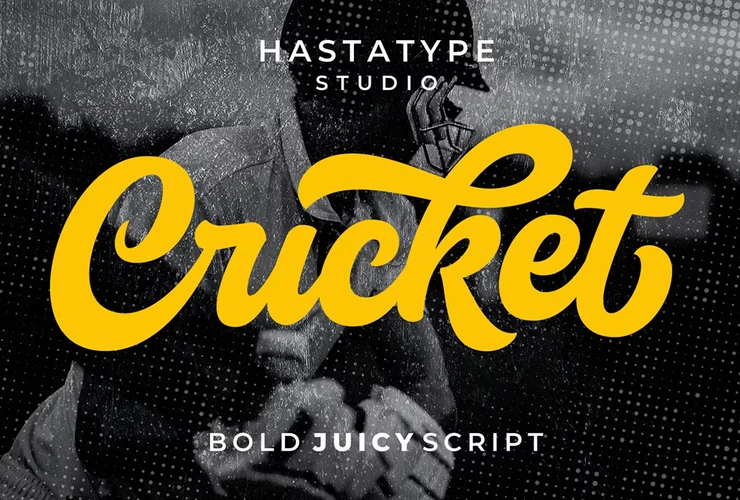
Introducing Cricket Script: A Dynamic and Bold Font for Striking Logotypes
Discover the elegance and energy of Cricket Script, a dynamic and bold script font designed to create distinctive logotypes. With its sweeping curves and intricate strokes, Cricket Script exudes a sense of motion and sophistication, making it the perfect choice for branding projects that require a striking and memorable impact.
Key Features of Cricket Script
Cricket Script is meticulously crafted to ensure your text stands out with style and flair. Here are some of its standout features:
Elegant and Energetic Design: Cricket Script’s bold and dynamic style brings a sense of motion and sophistication to your designs.
Comprehensive Character Set: Includes uppercase and lowercase letters, numbers, and punctuation.
Multilingual Support: Cricket Script supports multiple languages, making it accessible for a global audience.
Ligatures and Alternates: Enhance your text with natural and stylish connections and variations.
Enhance Your Branding with Cricket Script
Cricket Script is perfect for creating logotypes that leave a lasting impression. Its playful yet refined design ensures your text stands out, whether you’re designing for a modern tech brand, a chic fashion label, or a creative arts project. The versatility and boldness of Cricket Script give a confident and professional look to any project, capturing attention and making a memorable impact.